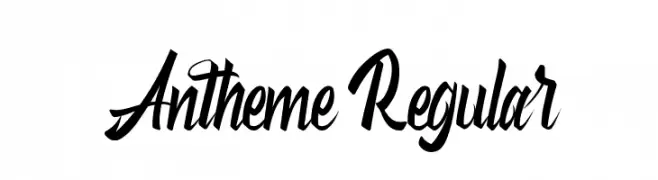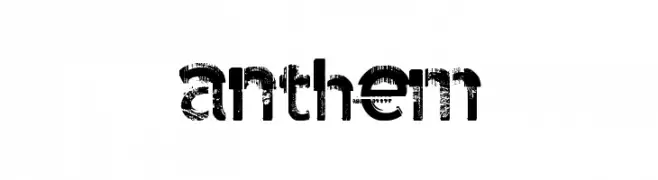
• anthem
• Anthem Minimalism script
A minimalistic and elegant script font with a modern touch.
• Anthem Nasney
A bold, dynamic script font with flowing, interconnected characters.
• Anthem of Narasi
A bold, flowing script font with interconnected, ornate characters.
• Antheme Regular
A dynamic, cursive script font with bold, flowing strokes and elegant flourishes.
• Anthemie
• Anthemy Script
A flowing, cursive script font with elegant, interconnected strokes.
• Anther Brush
A bold, expressive brush-style font with dynamic strokes and a handcrafted appearance.
• AntherBrush
A bold, brush-style font with dynamic, hand-painted strokes.
• Antherton Cloister
A decorative and whimsical font with intricate flourishes and playful extensions.